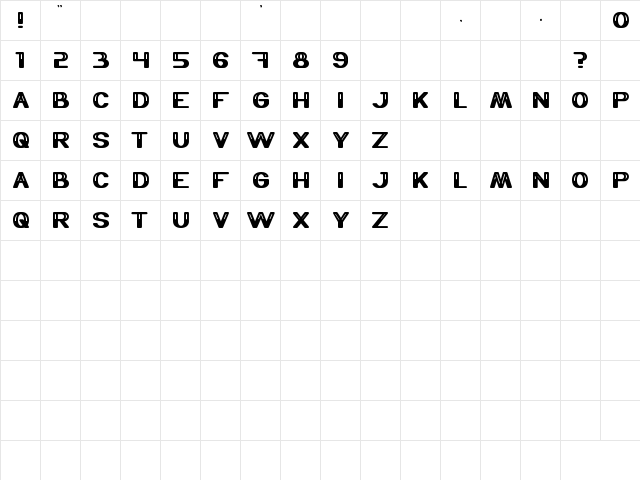
THERMOMETER Regular
Design Context for THERMOMETER Typeface
THERMOMETER is a composed and adaptable typeface that performs quietly and consistently across a wide range of design contexts.